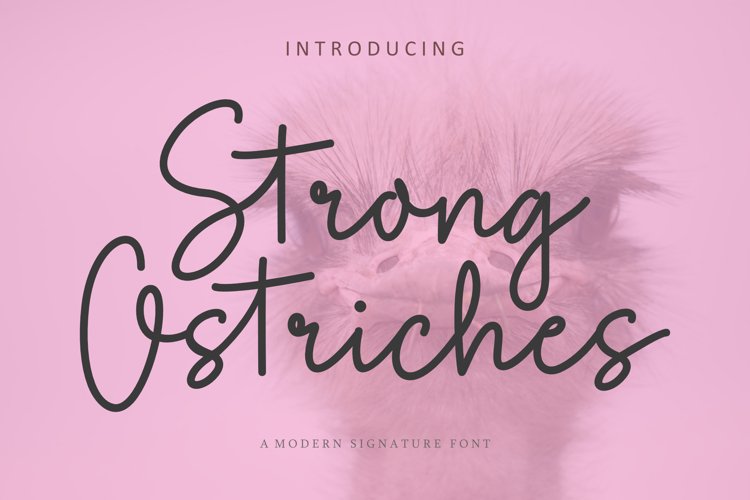
Strong Ostriches is a new modern script font with Signature style baseline. it looks lovely on wedding invitations, thank you cards, quotes, greeting cards, logos, business cards and more.